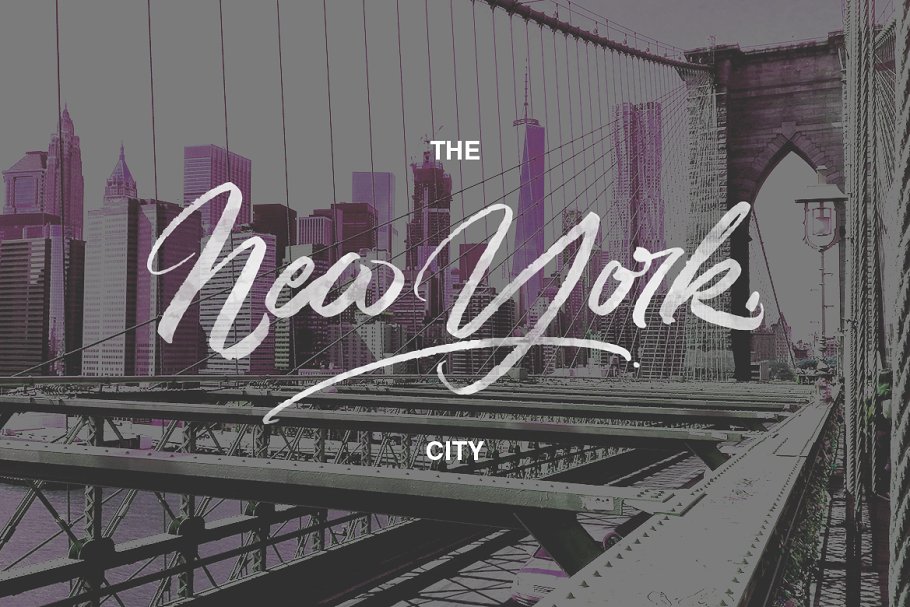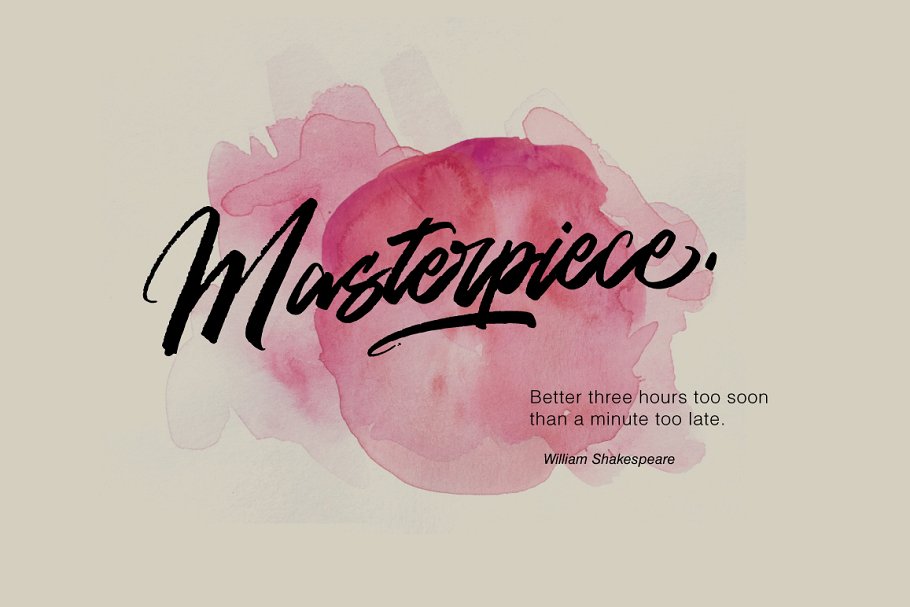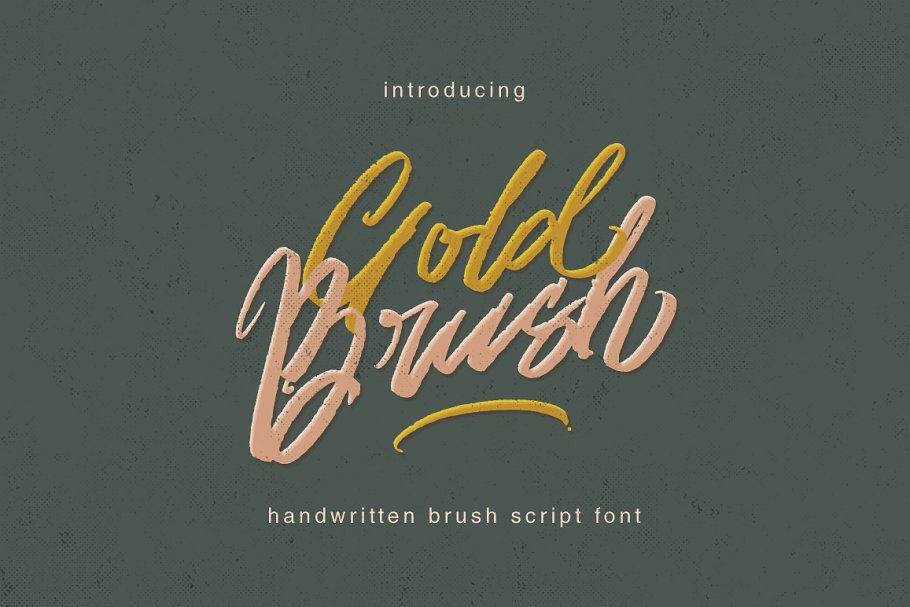
Gold Brush Font
Hi all…!! I am happy to present you a new fresh brush font, perfect for use in all your design projects. Introducing Gold Font. Gold is a hand brush products with extras. The style of handwriting and irregular but still elegant, and you will enjoy to use this font style. Gold Brush is perfect for branding projects, homeware designs, product packaging – or simply as a stylish text overlay to any background image.